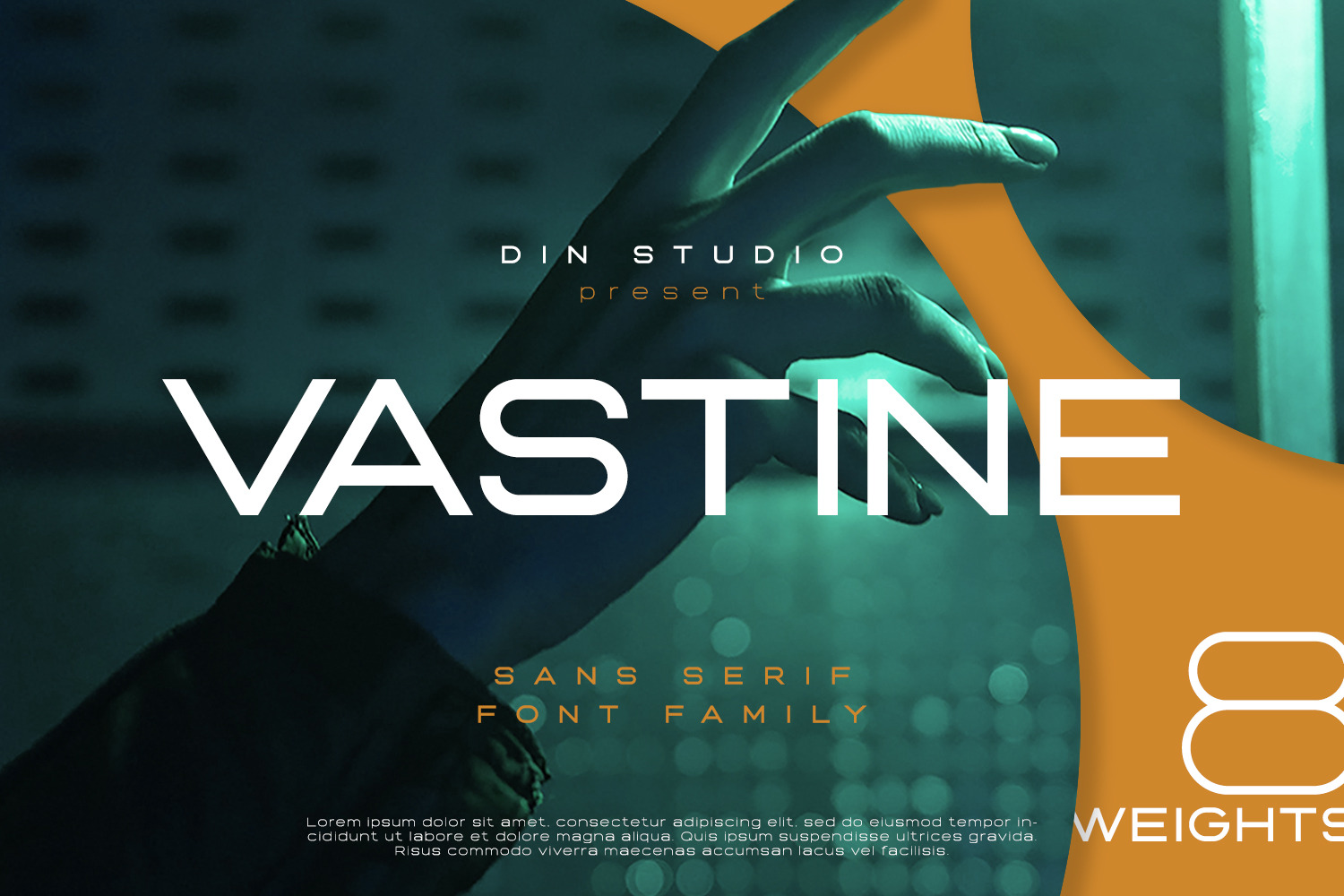
Vastine-Sans Serif Font Family
Hello, Everyone! Ready to make your branding spark? If you need to create a big, bold logo for your business, work on a poster for an event, or whatever your projects are, Vastine sans serif font is the perfect one for you.
Vastine, a Sans Serif Font Family, is your surprising package as you will get more options to maximize your designs with this stylish font. It is made in uppercase and lowercase letters which are easy on the eyes and nice to look at, and easy to read. This font is designed to bring your brandings to life and add a touch of modernity, fun and style.
Vastine fits for any design projects, such as posters, banners, logos, book covers, album covers, quotes, invitations, greeting cards, name cards, headings, printed products, merchandise, social media, etc. Find out more ways to use this font by taking a look at the font preview.